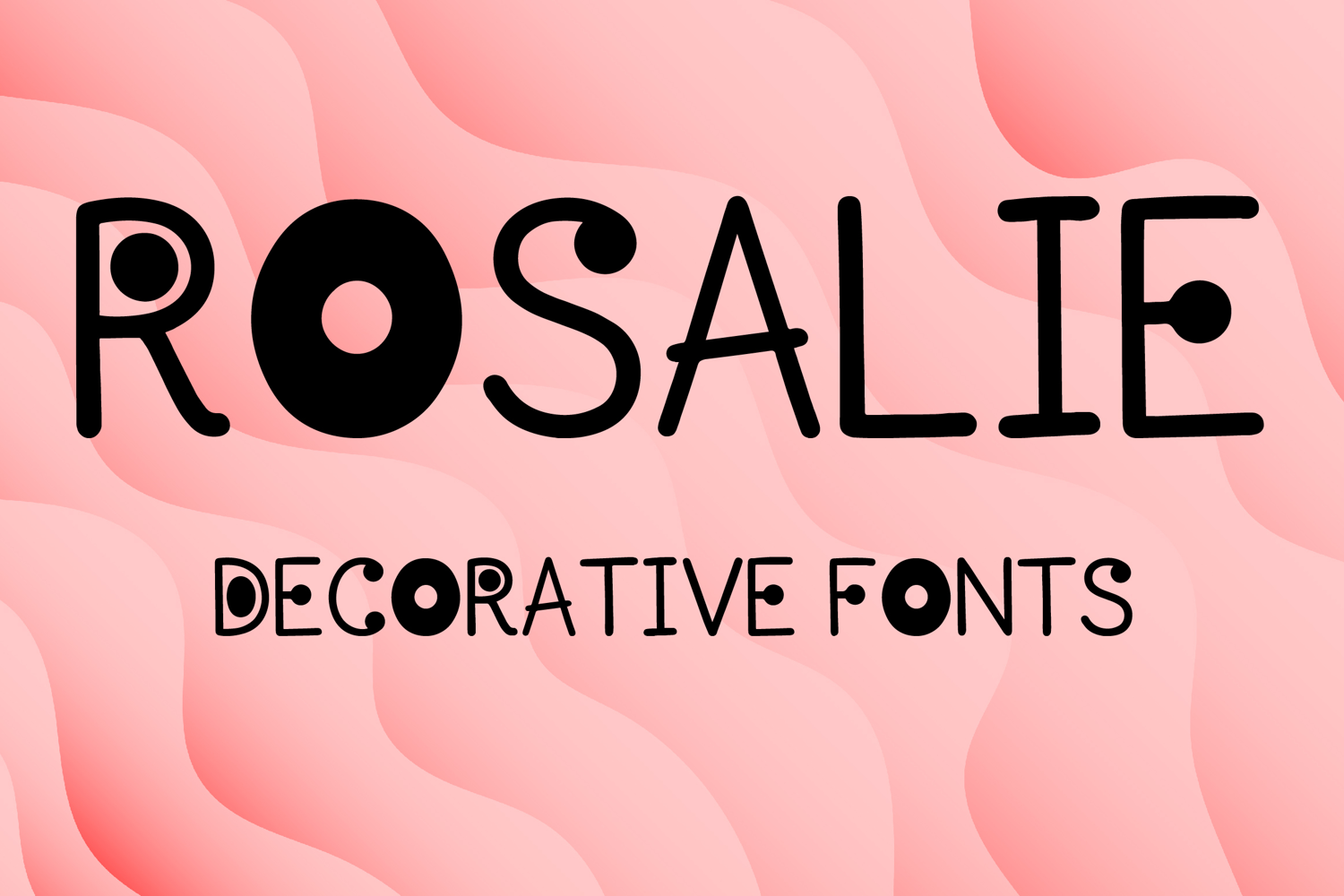
ROSALIE
ROSALIE is a charming decorative display font with a playful modern style and artistic handcrafted flair. Its uppercase letterforms feature slim strokes, bold circular accents, and unique geometric details that create a stylish, creative, and eye-catching look. Designed with uppercase letters A–Z and numbers 0–9, ROSALIE is perfect for branding, posters, packaging, invitations, logos, and social media graphics that need a fresh and memorable statement.